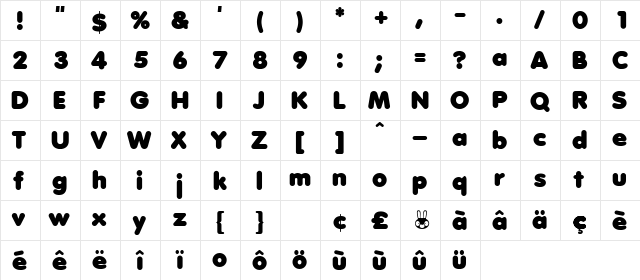
Anja Eliane accent Nornal
Design Context for Anja Eliane accent Typeface
Anja Eliane accent offers clean, dependable letterforms without strong stylistic allegiance, making it a practical choice for designers who need flexibility.